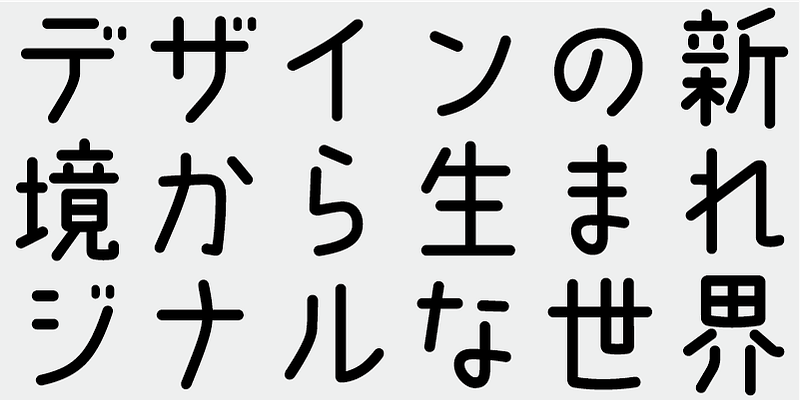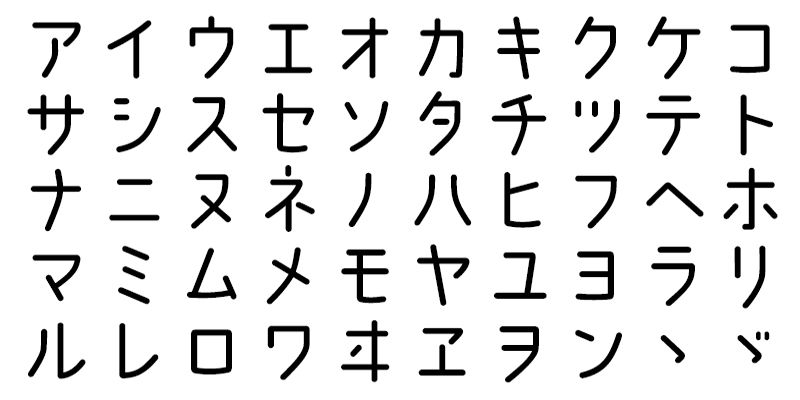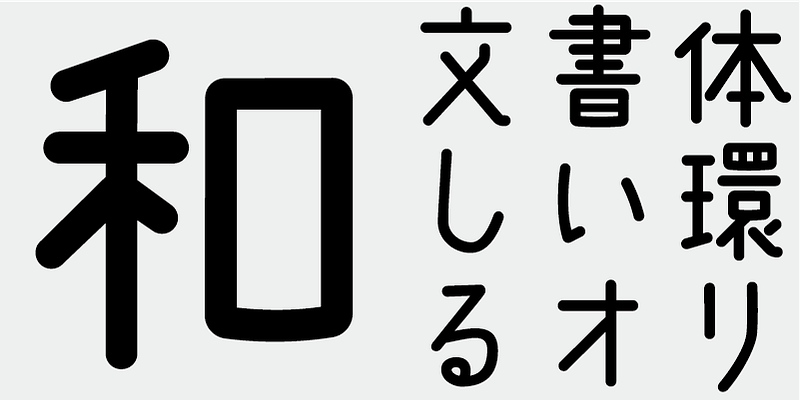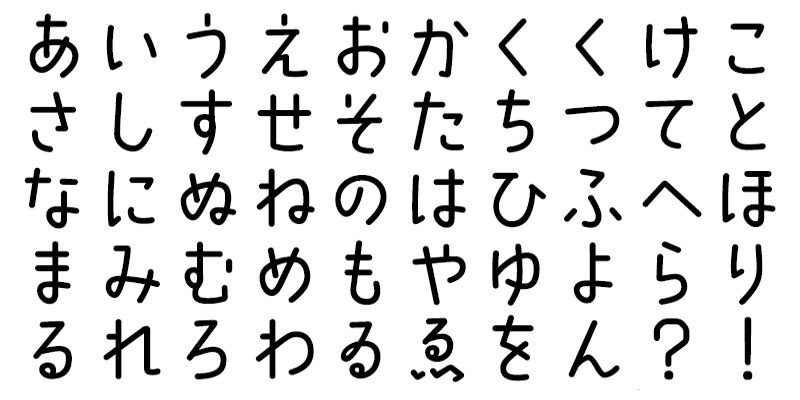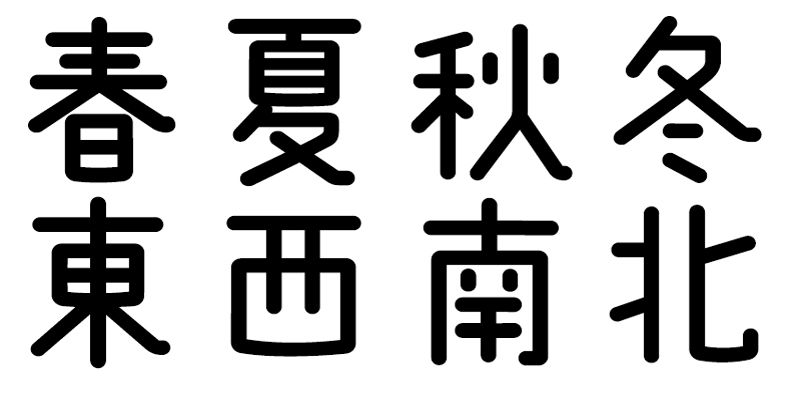
This typeface was designed to convey the excitement, gratitude, and memories felt when communicating through written letterforms. This is the lightest of all the three fonts in the Kokoro typeface family.